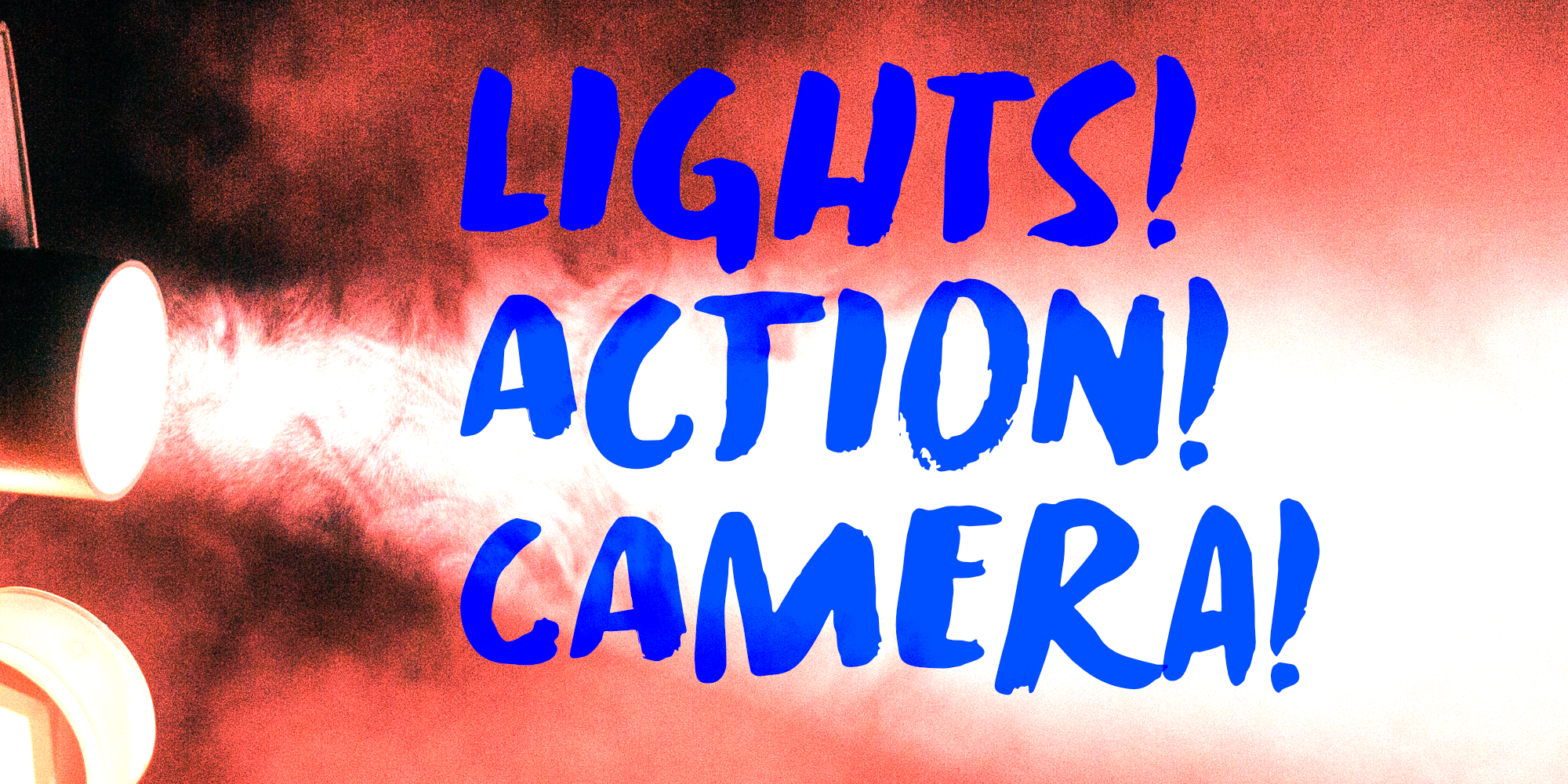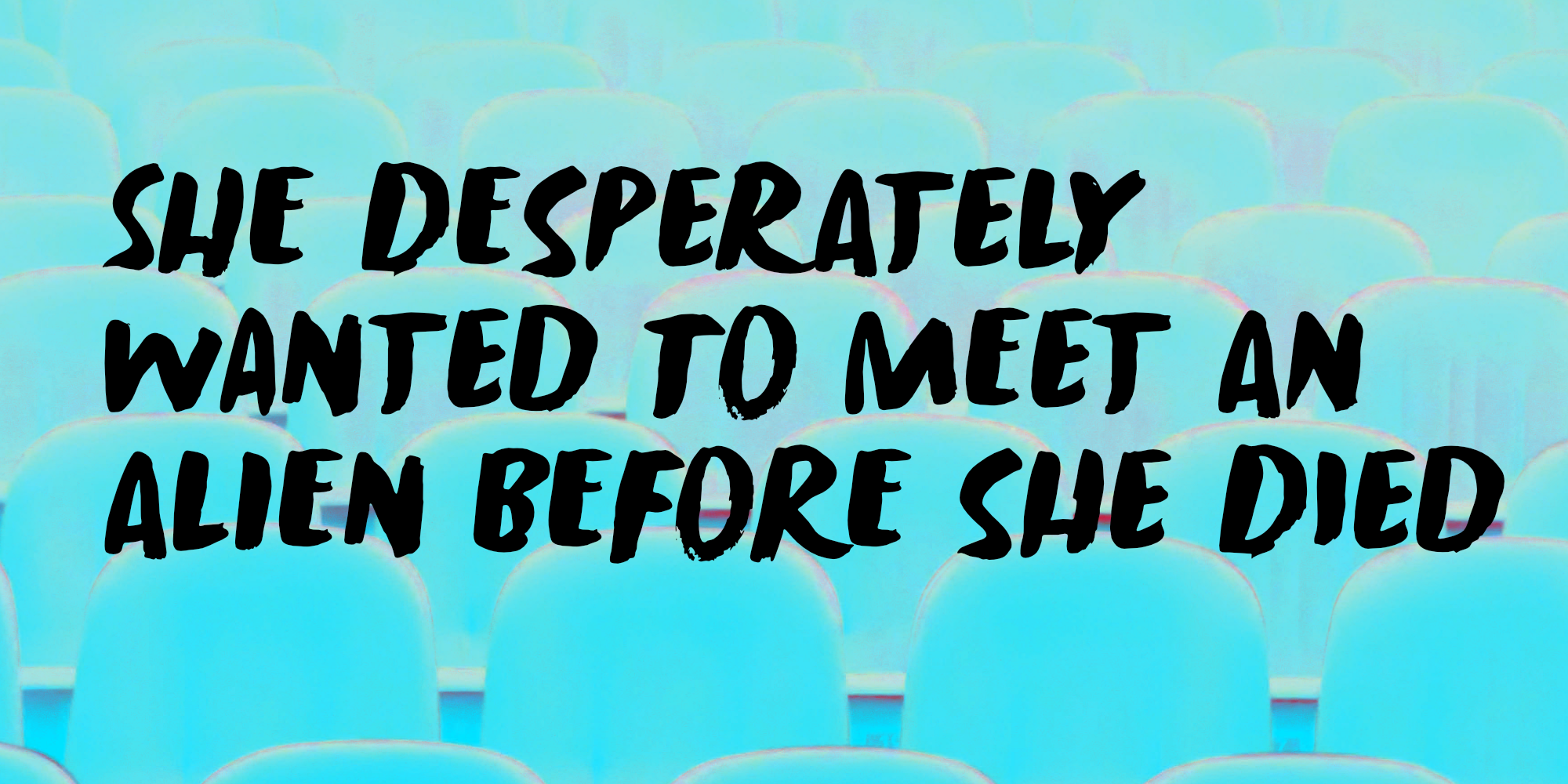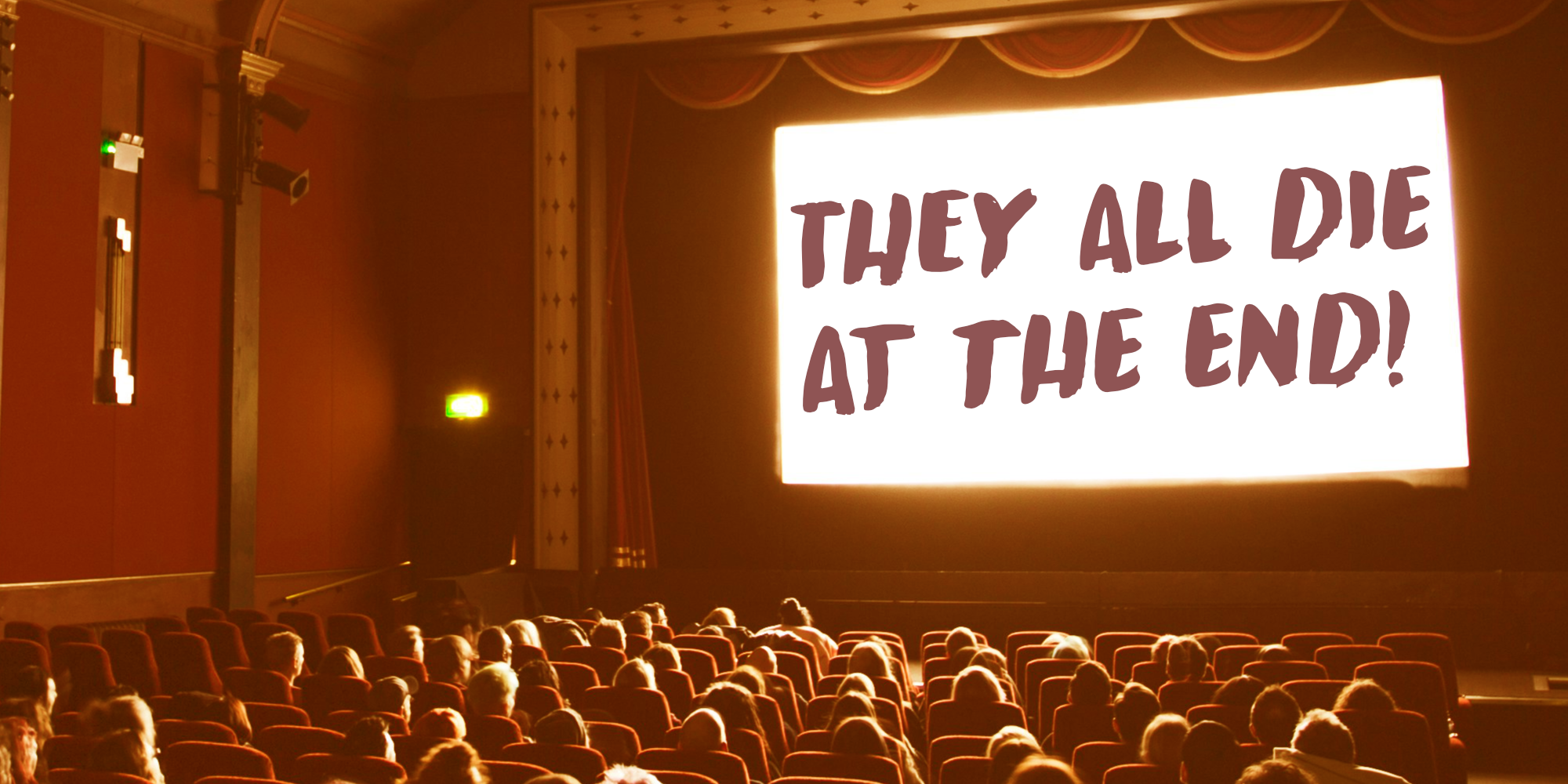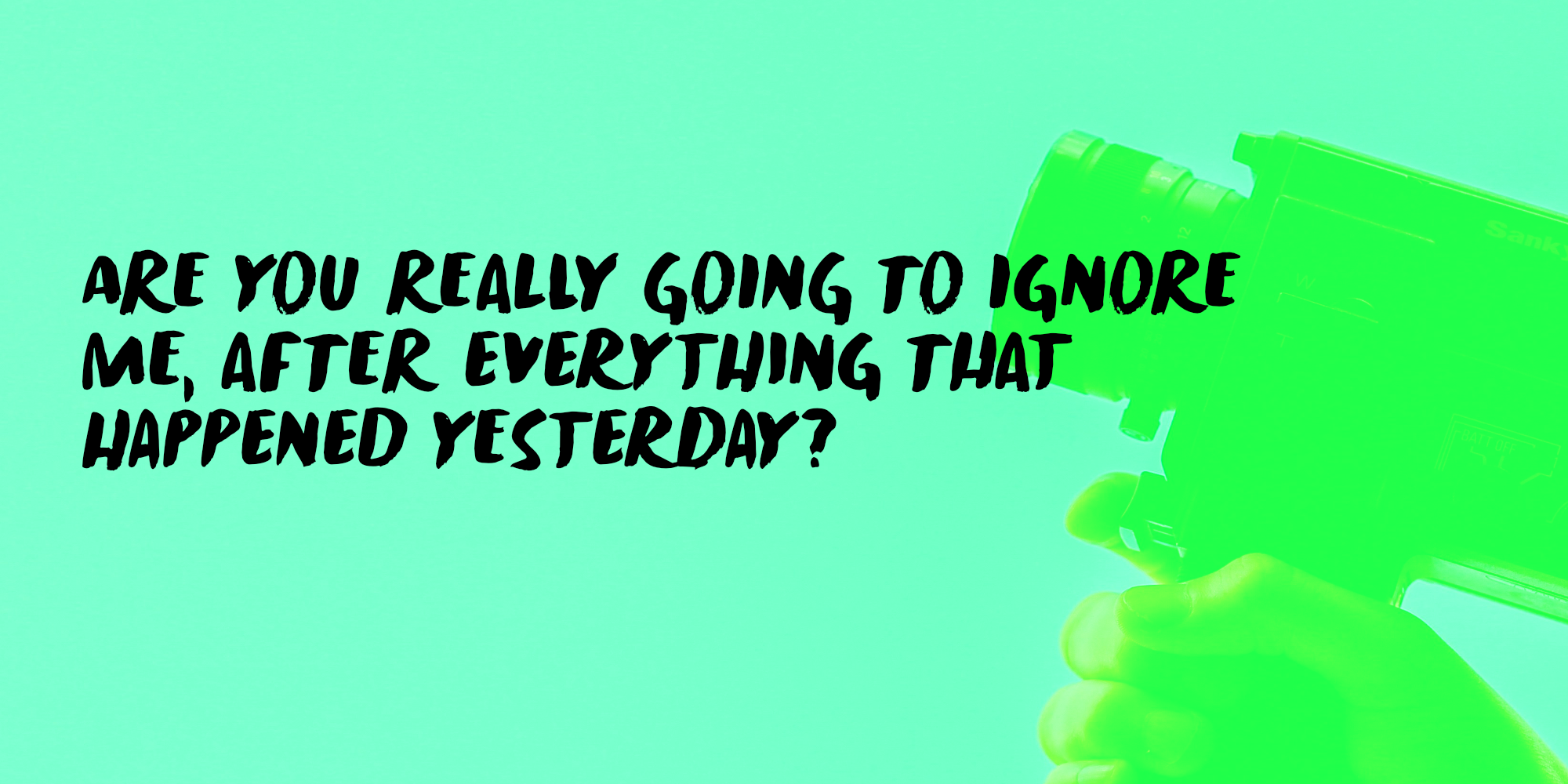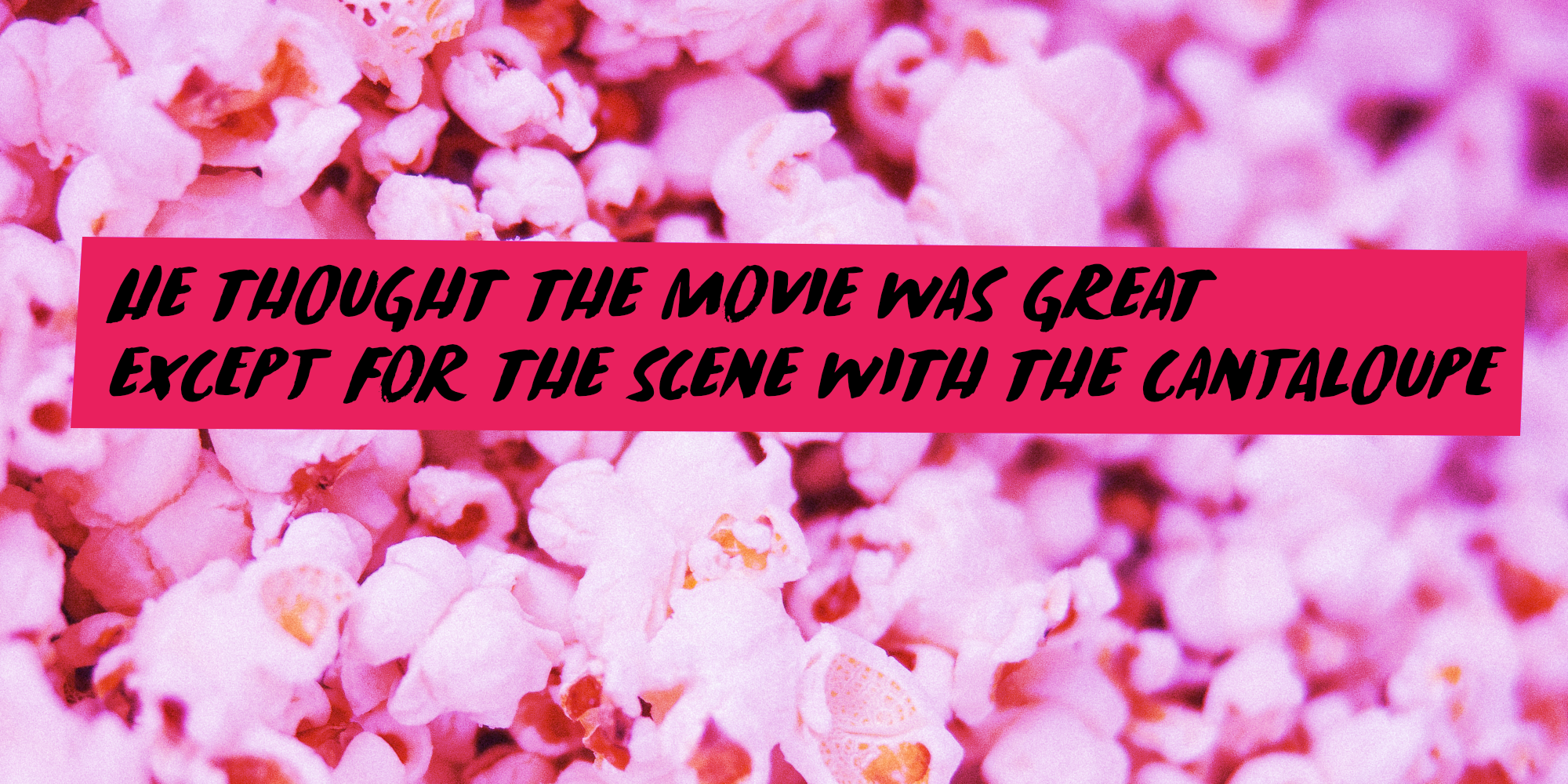
Cinema Outfit (2 fonts)
Anyways, I was thinking about that when I started working on this font. Cinema Outfit was made with ink and brush. It is a nice, messy kind of font which will look fantastic when used in your designs.
Comes with extensive language support and a set of contextual alternates to boot!